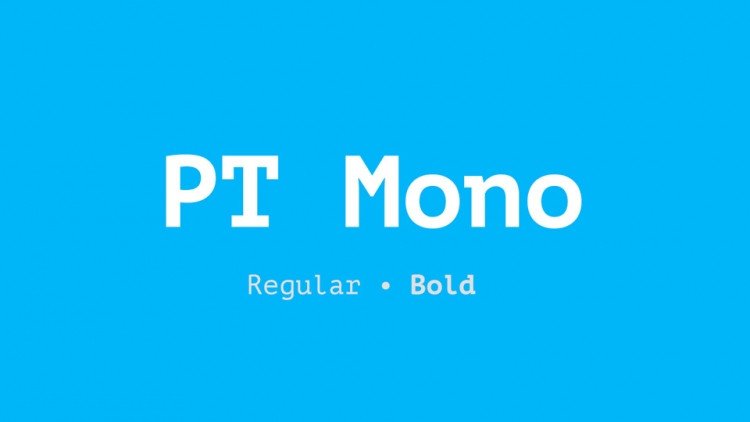
PT Mono Slab Font
PT Mono Slab Font is a monospaced font of the PT Project series. PT Mono was developed for the special needs: for use in forms, tables, work sheets etc. Equal widths of characters are very helpful in setting complex documents, with such font you may easily calculate size of entry fields, column widths in tables and so on.
One of the most important area of use is Web sites of “electronic governments“ where visitors have to fill different request forms.